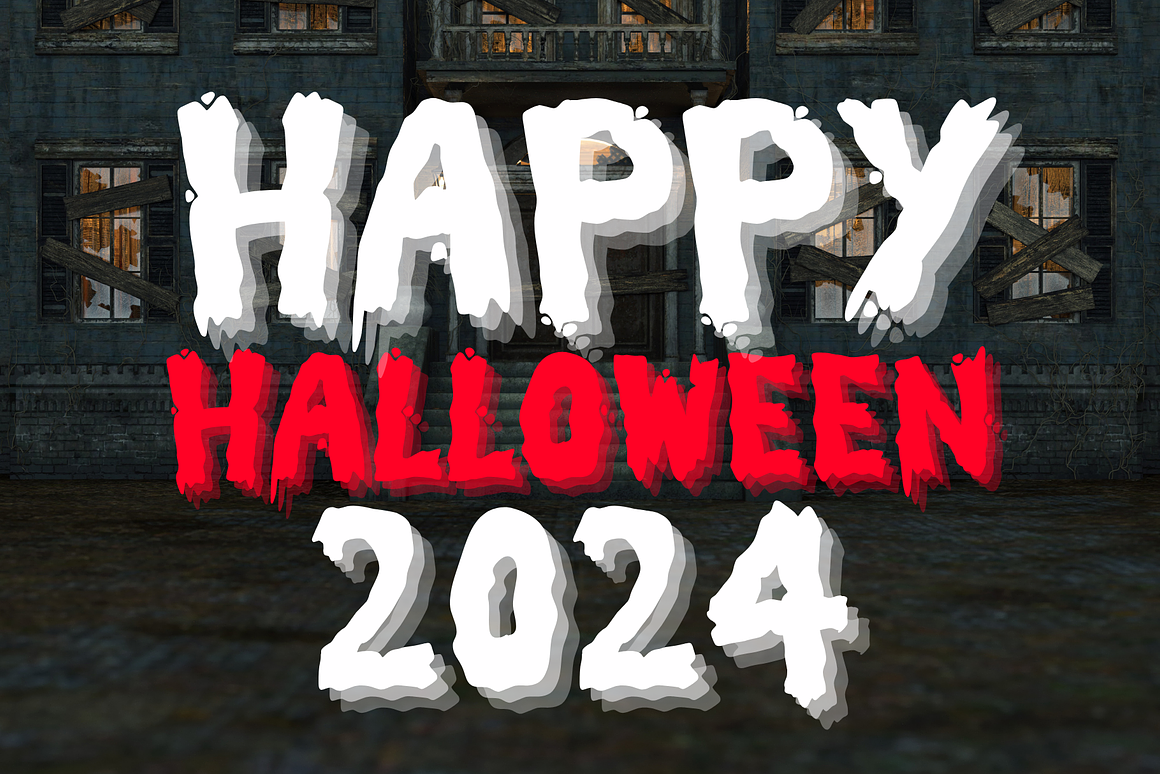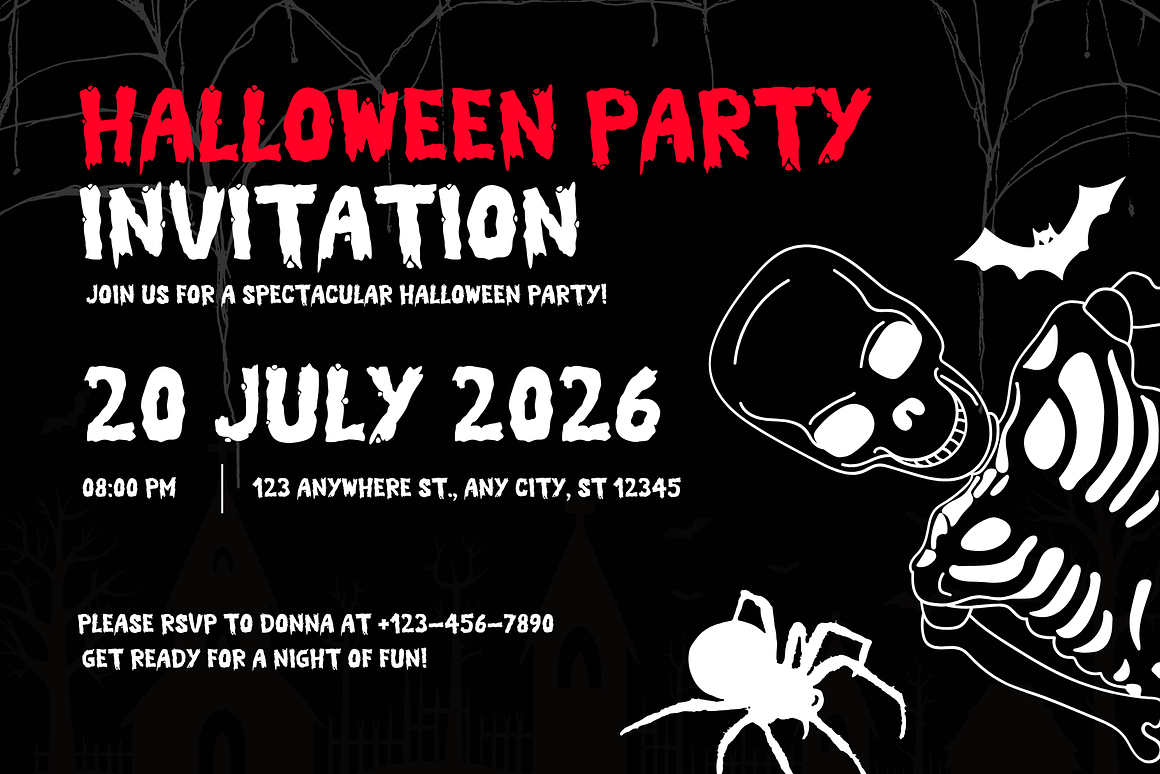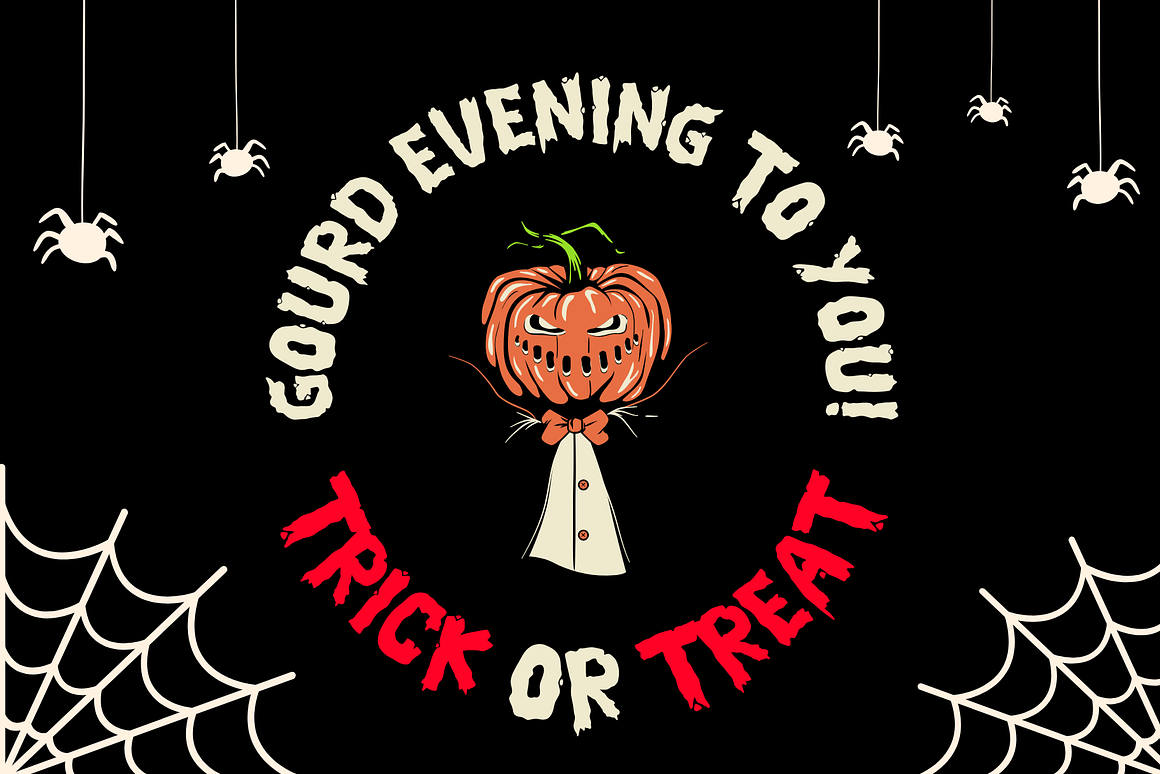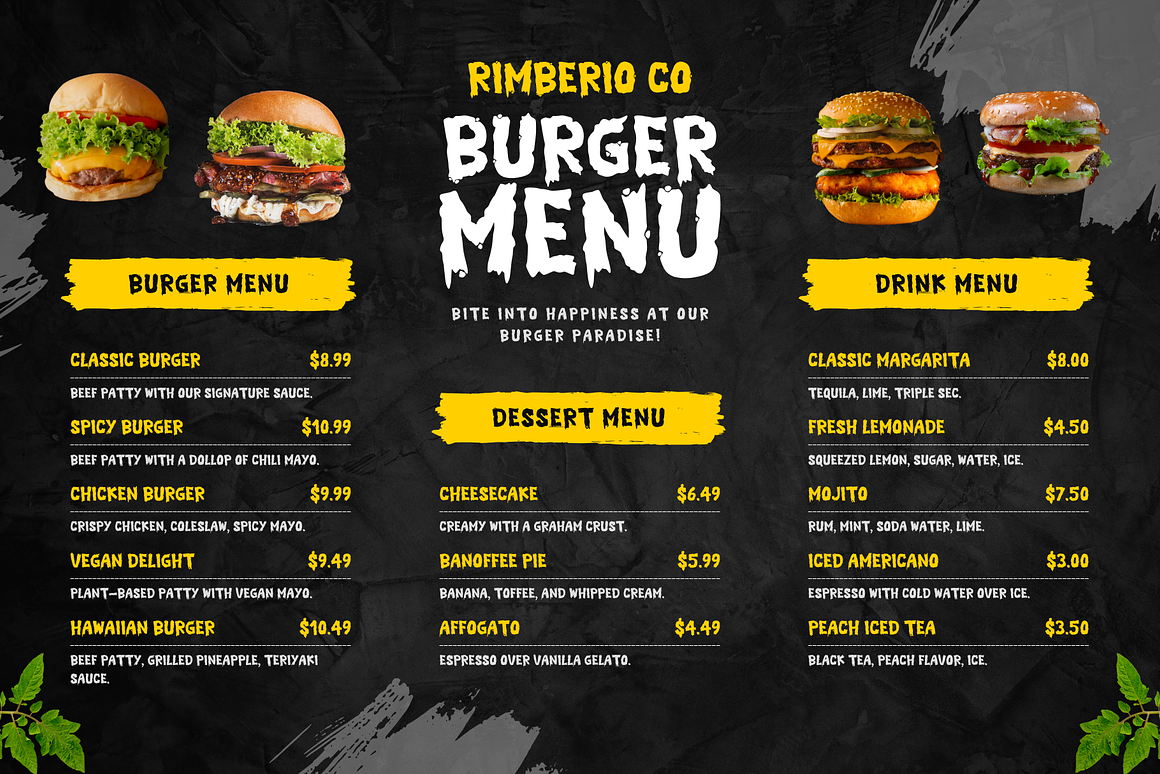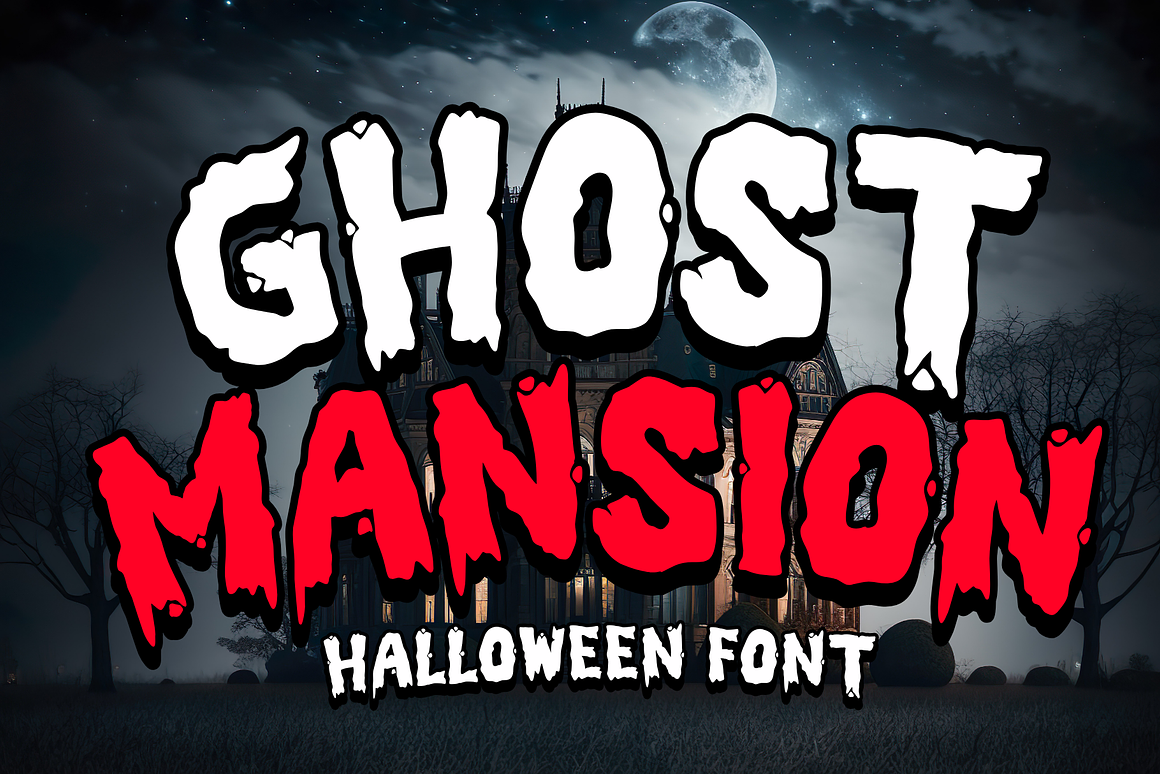
Ghost Mansion is a Halloween Font
This spectral font is perfect for haunted mansion attractions, ghostly estate events, phantom manor decorations, ethereal Halloween parties, spectral mansion tours, haunted house marketing, ghostly Victorian celebrations, phantom estate branding, supernatural mansion displays, and hauntingly elegant Halloween messaging materials.
Ghost Mansion is a Halloween Font is exciting because it captures the ethereal elegance and spectral grandeur of phantom estates through its hauntingly beautiful letterforms that seem to shimmer between the physical and supernatural realms like ghostly apparitions wandering through moonlit hallways. The font features transparently elegant characters with mansion proportions and ghostly details that evoke the spine-tingling beauty of spectral encounters in grand estate settings, incorporating phantom-like flourishes and ethereal elements that create typography as hauntingly beautiful as the sight of translucent figures gliding through ornate Victorian parlors. Each letter showcases the tragic elegance and supernatural grace that makes ghost mansion encounters so romantically terrifying, with spectral curves and phantom accents that transform ordinary text into ethereal communications that capture the melancholy beauty and supernatural sadness of souls forever bound to the grand estates they once called home in life.
The Ghost Mansion is a Halloween Font family includes spectral style variations: Regular, Bold, Light, Ethereal, and Phantom versions. The collection features special ghostly elements including spectral accents, phantom flourishes, ethereal details, and transparent ornaments. Additional components include haunted borders, ghostly frames, spectral decorations, and ethereally elegant ornamental designs that enhance the font's ghost mansion Halloween appeal and create cohesive phantom estate themes.
Paranormal investigators and ethereal celebration planners will find Ghost Mansion is a Halloween Font to be an exceptional resource for creating authentically spectral Halloween communications that capture the haunting beauty and supernatural elegance of phantom mansion experiences. This ethereally crafted font transforms ordinary Halloween messaging into ghostly expressions that resonate with audiences who appreciate the tragic romance and supernatural beauty that make ghost mansion themes such compelling elements of elegant Halloween horror and ethereal supernatural entertainment.
The typeface includes comprehensive character support with spectral styling that maintains excellent readability while conveying the ethereal elegance and ghostly atmosphere of phantom mansion Halloween celebrations. The font's haunting design ensures beautifully spectral results across both amateur ghost applications and professional haunted mansion productions.
Perfect for haunted mansions, ghostly celebrations, ethereal Halloween events, and hauntingly beautiful seasonal marketing, this font delivers spectrally elegant visual impact that communicates supernatural beauty, phantom grace, and the hauntingly romantic atmosphere that makes ghost mansions such ethereally beautiful and tragically elegant settings for supernatural Halloween entertainment.